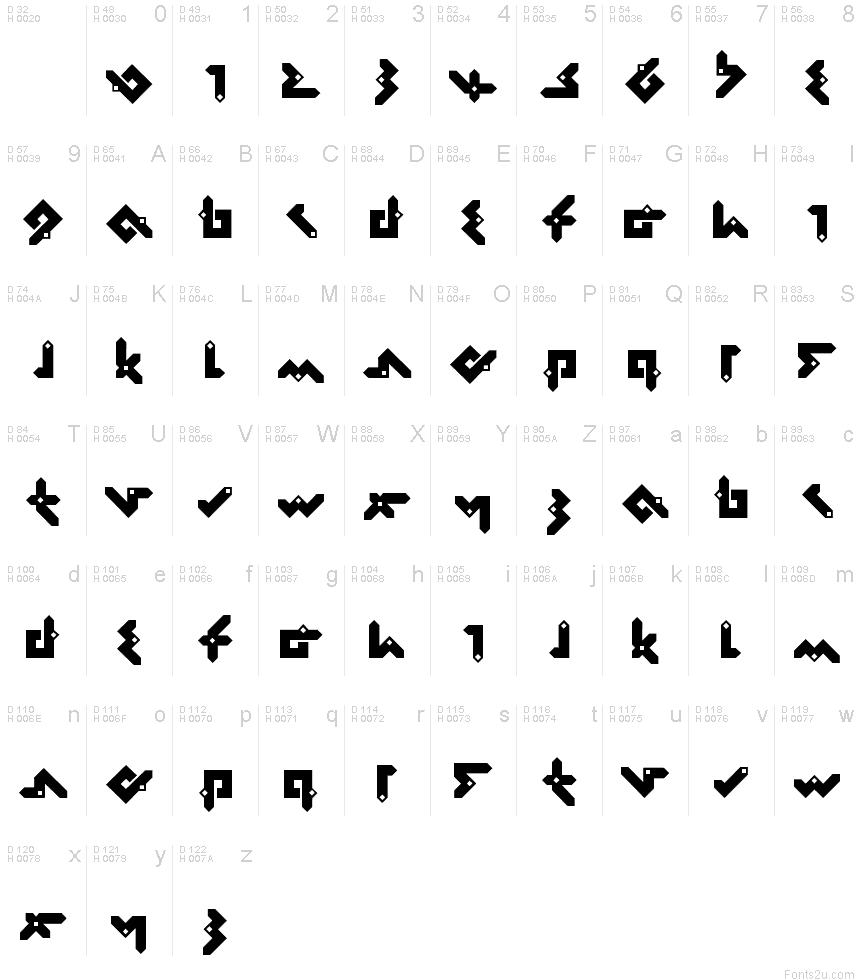
Pentomino
Pentomino, a free geometric puzzle-letter display font, builds its identity from chunky black forms, sharp diagonals, and small diamond cutouts that keep the letters feeling in motion. The alphabet looks carved from interlocking tiles, with a hard-edged, almost totemic rhythm that leans more playful than futuristic.
It suits poster titles, album sleeves, arcade-flavored branding, event flyers, and short packaging names where the shapes can do the talking. As a free font, Pentomino also makes sense for title cards, monograms, and drop-in headlines, especially when you want a compact wordmark with a modular, game-piece feel.